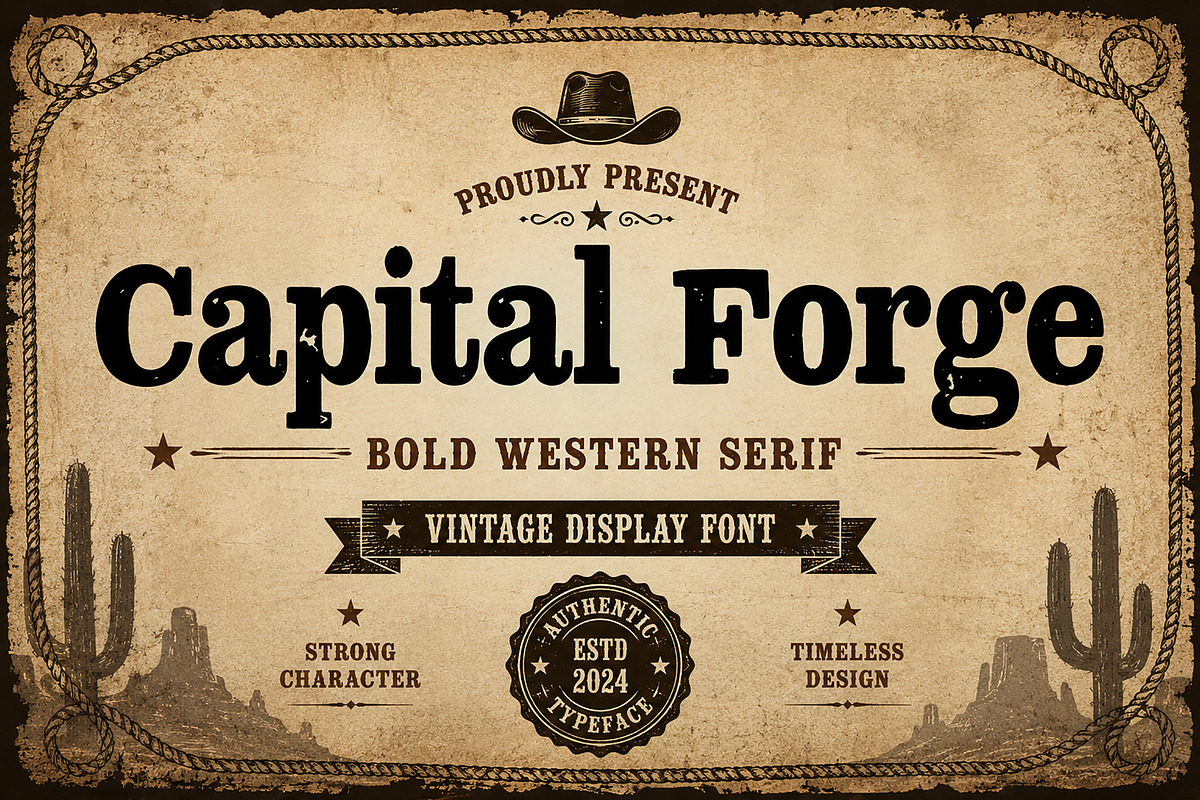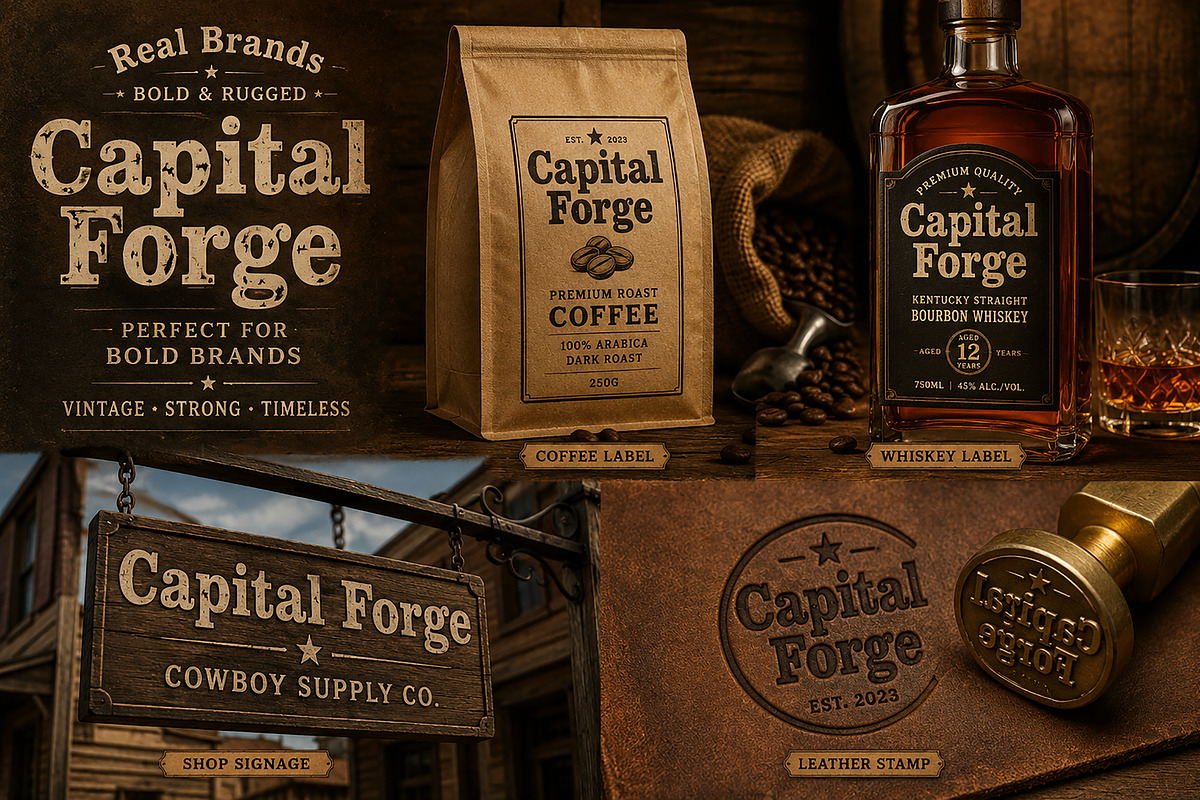
Capital Forge
Bold Western Serif Font
Vintage Display Typeface Inspired by Old West Posters, Whiskey Labels & Rustic Branding. Perfect for Logos, Packaging & Headlines.
Capital Forge is a bold western serif display font crafted with strong vintage character and rugged personality. Inspired by old-west saloon posters, whiskey labels, cowboy branding, and rustic Americana aesthetics, this typeface delivers a timeless handcrafted feel with powerful visual impact.
Designed to stand out, Capital Forge combines classic western influence with modern versatility, making it perfect for logos, packaging, posters, signage, branding, apparel, and editorial projects that need a bold and authentic touch.
Its distinctive curves, strong serifs, and distressed-inspired style make it ideal for creating eye-catching designs with a vintage, masculine, and adventurous atmosphere.
Bring the spirit of the wild west into your designs with Capital Forge — a bold typeface forged for strong brands and timeless creations.